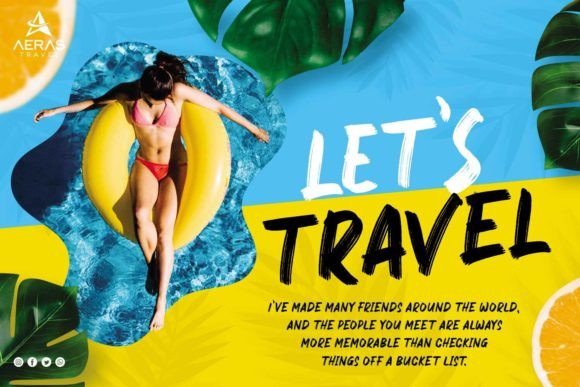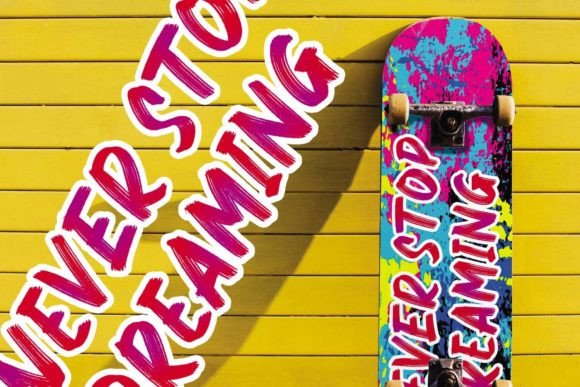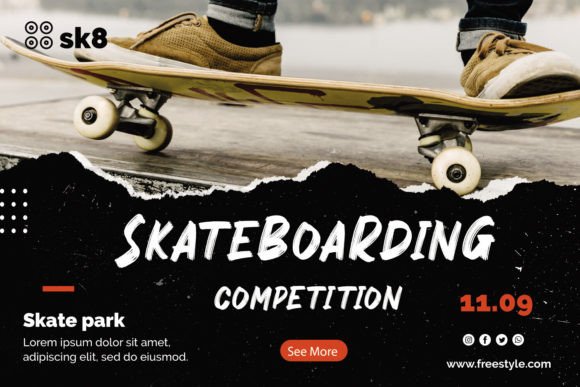
Blackrose Font
Get summer ready with the Blackrose – a textured brush font
It is bold, tightly spaced, and retains all of the brush imperfections.
It has a nice contrast with opaque parts and transparent ones.
It will give your work an authentic and realistic paintbrush look!